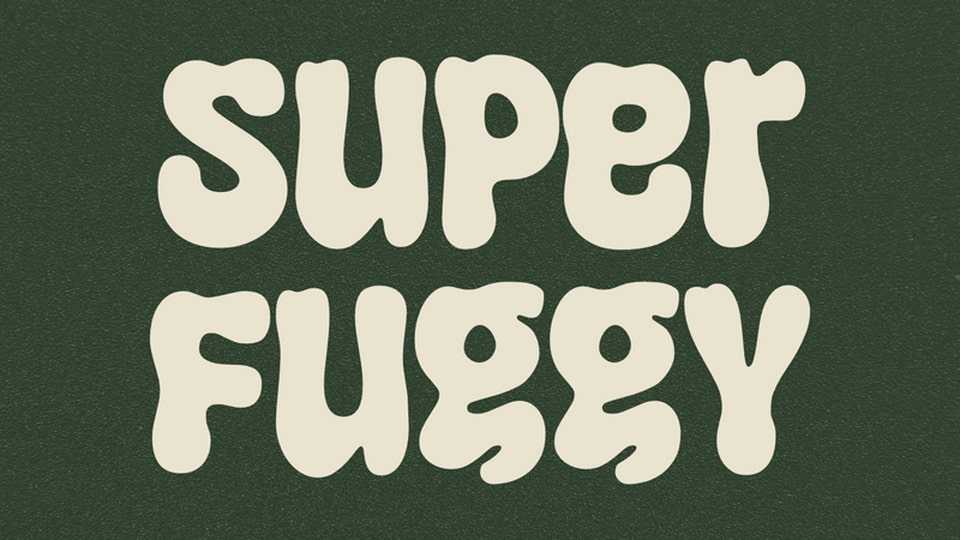
Download Super Fuggy font, a groovy display typeface with a playful vibe and a cute touch. Handcrafted with care, Super Fuggy font is well suited to create everything from posters to logos – all with an authentic feel.